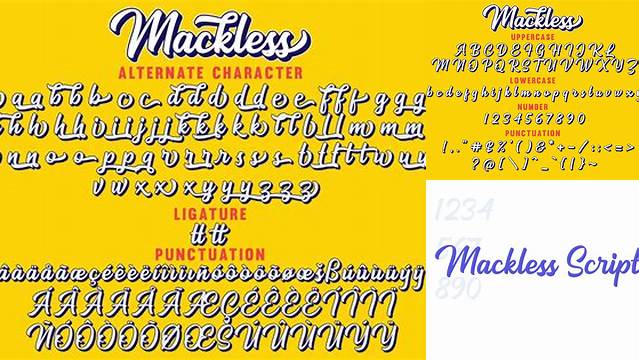
Are you on the lookout for an elegant and stylish font to elevate your design projects? Look no further! The Mackless Script font is a fantastic choice for adding a touch of sophistication and personality to your work. In this comprehensive guide, we'll explore everything you need to know about the Mackless Script font, including how to download it for free, its unique characteristics, and creative ways to use it in your projects. So, let's dive in and discover the beauty and versatility of this amazing typeface!
What is the Mackless Script Font?
The Mackless Script font is a beautifully crafted typeface that falls under the category of script fonts. Script fonts are known for their flowing, handwritten style, which often mimics the look of cursive writing. This makes them ideal for projects where you want to convey a sense of elegance, warmth, and personal touch. The Mackless Script font, in particular, stands out for its refined letterforms, graceful curves, and overall aesthetic appeal. It’s a font that effortlessly combines classic charm with modern sensibilities, making it a popular choice among designers and creatives.
One of the key features of the Mackless Script font is its high level of readability, even in larger blocks of text. While some script fonts can be challenging to read in lengthy paragraphs, Mackless Script strikes a perfect balance between style and clarity. This makes it suitable for a wide range of applications, from headlines and titles to body text and calligraphic elements. Its versatility allows you to use it across various design mediums, both print and digital, without compromising on legibility.
Moreover, the Mackless Script font often includes a variety of stylistic alternates, swashes, and ligatures. These additional characters provide you with greater flexibility and creativity when designing. Stylistic alternates allow you to change the appearance of individual letters, giving you more control over the overall look and feel of your text. Swashes are decorative extensions or flourishes that can be added to certain letters to enhance their visual appeal. Ligatures, on the other hand, are special characters that combine two or more letters into a single glyph, creating a more seamless and fluid connection between the letters.
When considering the Mackless Script font for your projects, it’s essential to understand its unique characteristics and how they can contribute to your design goals. The font’s elegant and flowing style makes it perfect for projects that require a touch of sophistication, such as wedding invitations, branding materials, and website headers. Its legibility ensures that your message is conveyed clearly, while its stylistic alternates and ligatures allow you to add a personalized and creative touch. Whether you’re designing a logo, crafting a greeting card, or creating a website, the Mackless Script font can help you achieve a visually stunning and impactful result.
The Mackless Script font is a beautiful and versatile typeface that can elevate your design projects with its elegance and sophistication. Whether you're working on branding, wedding invitations, social media graphics, or personal projects, this font offers a unique and stylish touch. By understanding its characteristics and exploring creative ways to use it, you can unlock its full potential and create visually stunning designs. So, go ahead and download the Mackless Script font for free and start experimenting with this amazing typeface today!